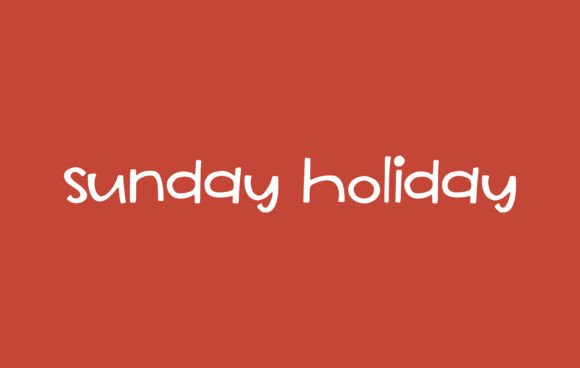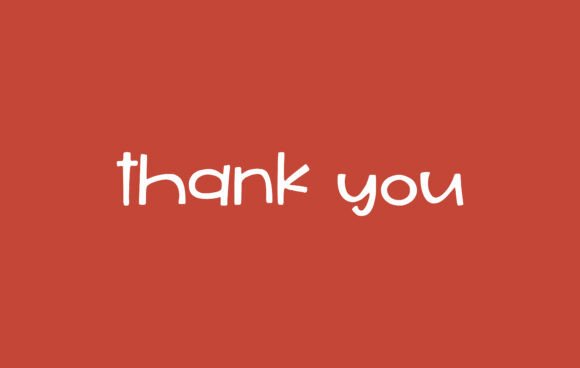
Discover the Beauty of Angelic Harmony Font: Elevate Your Designs with Elegance
In the world of typography, fonts play a crucial role in conveying messages, expressing emotions, and creating a lasting impression. For designers, crafters, and creative enthusiasts, finding the perfect font can be a daunting task. However, if you’re looking for a font that exudes romance, elegance, and sophistication, look no further than the Angelic Harmony font. This authentic handwritten font is expertly designed to capture the essence of love, beauty, and creativity, making it an ideal choice for a wide range of design projects.
The Charm of Angelic Harmony Font
Angelic Harmony font is a true masterpiece, boasting a romantic touch that will leave you and your audience spellbound. Its unique, handwritten style is characterized by flowing curves, delicate strokes, and a sense of fluidity that gives it a natural, effortless look. Whether you’re designing a wedding invitation, a social media post, or a magazine headline, this font is sure to add a touch of elegance and refinement to your work.
One of the standout features of Angelic Harmony font is its versatility. This font is not only beautiful but also highly legible, making it perfect for use as both title and body text. Its clear, readable design ensures that your message is conveyed with clarity, while its aesthetic appeal adds a touch of sophistication to your design. Whether you’re creating a blog post, a brochure, or a business card, Angelic Harmony font is sure to impress.
The possibilities are endless when it comes to using Angelic Harmony font in your designs. Here are just a few ideas to get you started:
- Wedding Invitations: Create beautiful, custom wedding invitations that set the tone for a romantic and unforgettable celebration.
- Social Media: Elevate your social media presence with eye-catching graphics, posts, and stories that showcase your brand’s personality.
- Branding: Develop a strong brand identity with custom logos, business cards, and letterheads that reflect your values and style.
- Magazine Headlines: Create stunning magazine headlines that grab attention and draw readers in.
- Cards and Stationery: Design beautiful greeting cards, thank-you notes, and stationery that showcase your creativity and thoughtfulness.
Why Choose Angelic Harmony Font?
With so many fonts available, why choose Angelic Harmony font? Here are just a few reasons why this font stands out from the rest:
- Unique and Authentic: Angelic Harmony font is a one-of-a-kind, handmade font that adds a touch of personality to your designs.
- Elegant and Sophisticated: This font exudes elegance and sophistication, making it perfect for designs that require a touch of refinement.
- Legible and Versatile: Angelic Harmony font is highly legible and versatile, making it suitable for a wide range of design projects.
In conclusion, Angelic Harmony font is a beautiful, authentic handwritten font that is sure to elevate your designs to new heights. With its romantic touch, elegant style, and versatility, this font is perfect for designers, crafters, and creative enthusiasts who want to add a touch of sophistication and refinement to their work. Whether you’re designing a wedding invitation, a social media post, or a magazine headline, Angelic Harmony font is the perfect choice. So why wait? Discover the beauty of Angelic Harmony font today and take your designs to the next level!